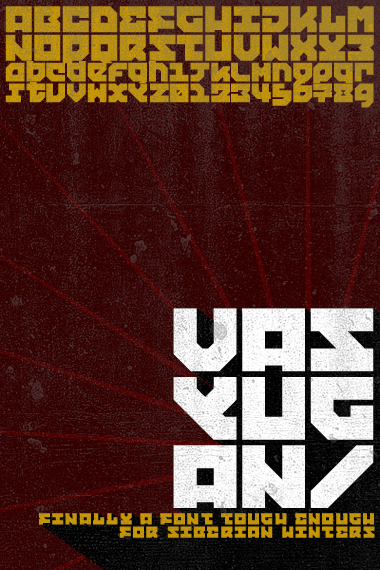
just discovered this possibility to upload pictures... great way to add sample artwork to fonts where you can see them in action!
this one could certainly have used some more refinement before being kicked online, but well, it's late and i'm thrilled by this discovery, so why wait longer to make use of it...
Another great one, shasta. It also works well as graffiti block letters. I almost want to see it with a treatment like Lame, Dude!
awesome font, very coherent and simple
supergreat work on this one.
pure style
Awesome! So cool...
I have no words for this font :)
SOME LETTER CALLED M IS LIKE MTV LOGO WITHOUT THE TV TEXT